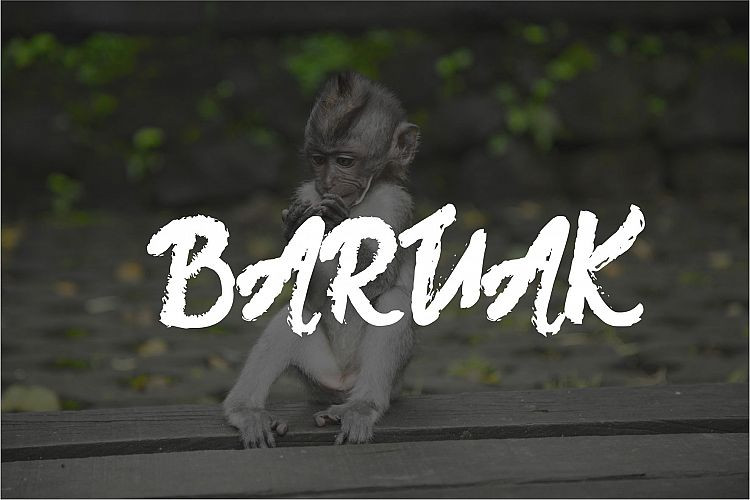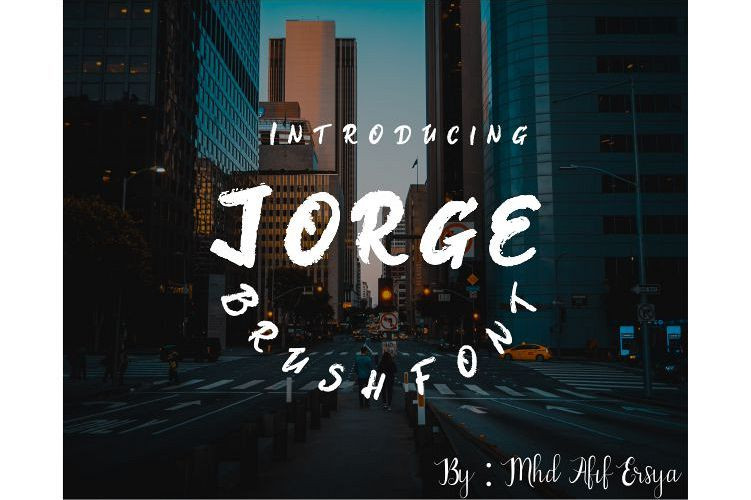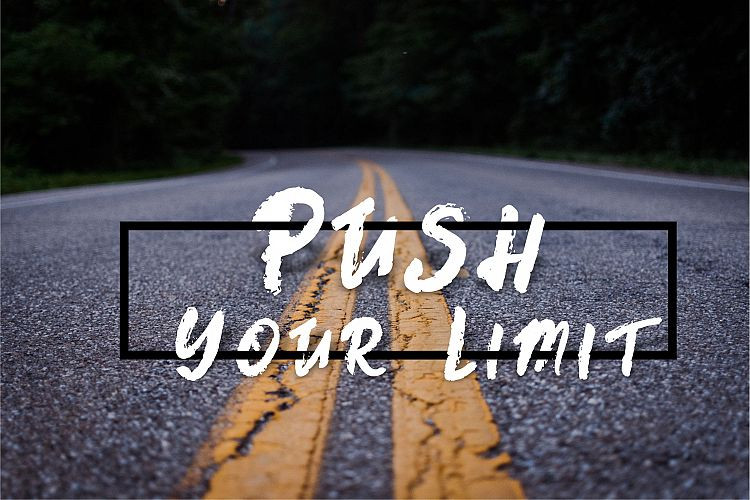
Jorge Font
Jorge Brush Font is an authentic style with clean and rough options, making it useful for a wide range in both personal and commercial products.